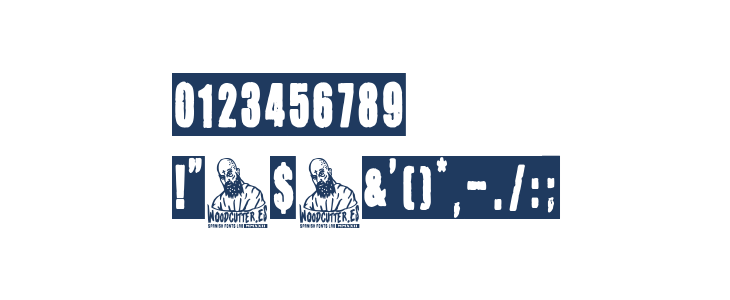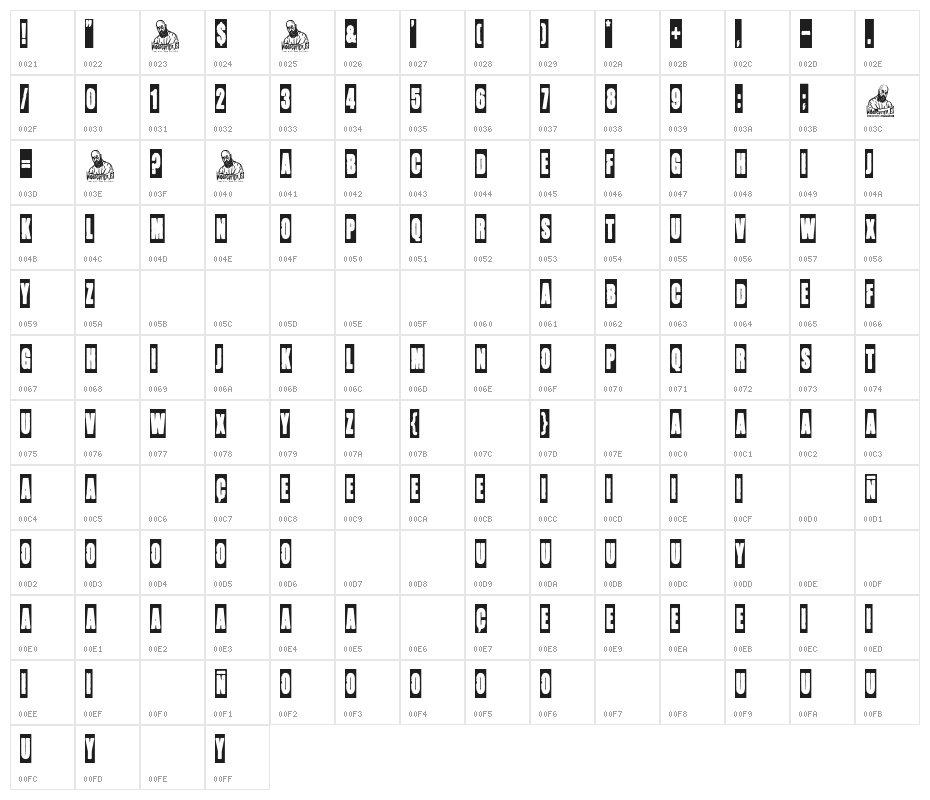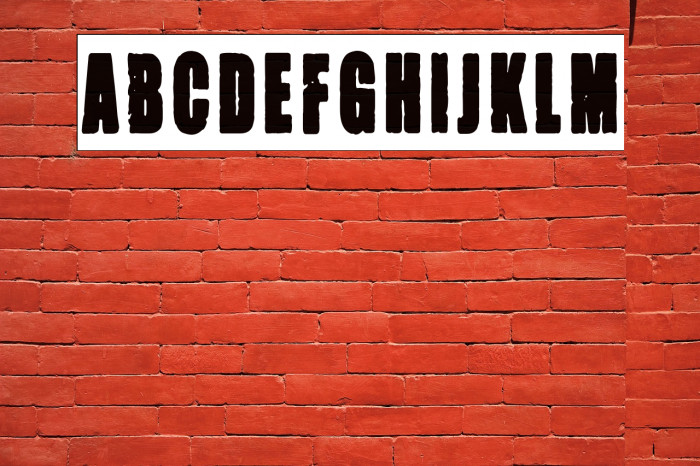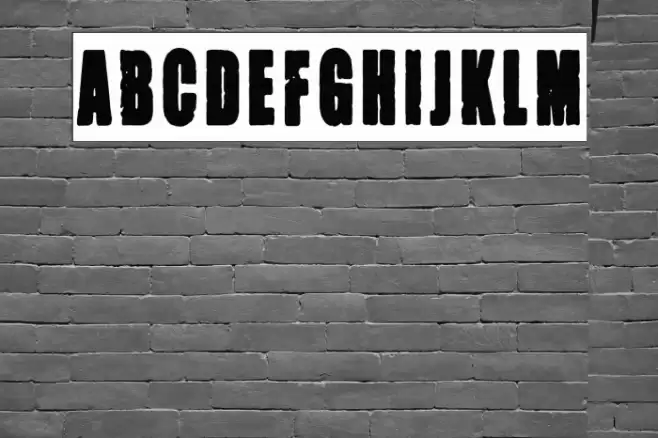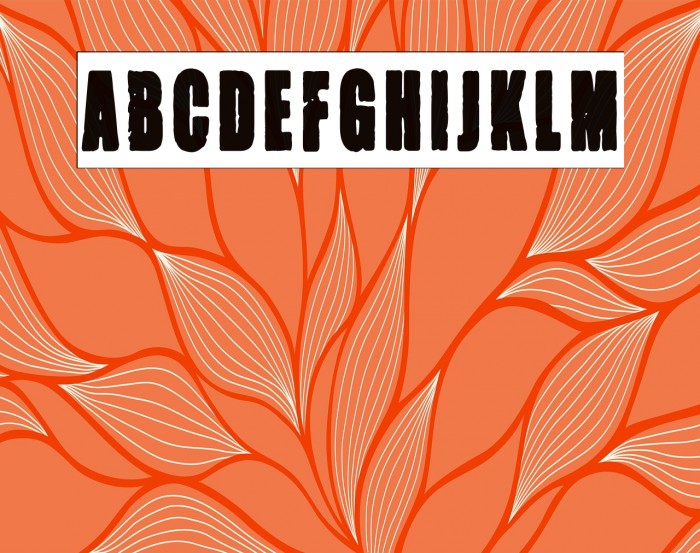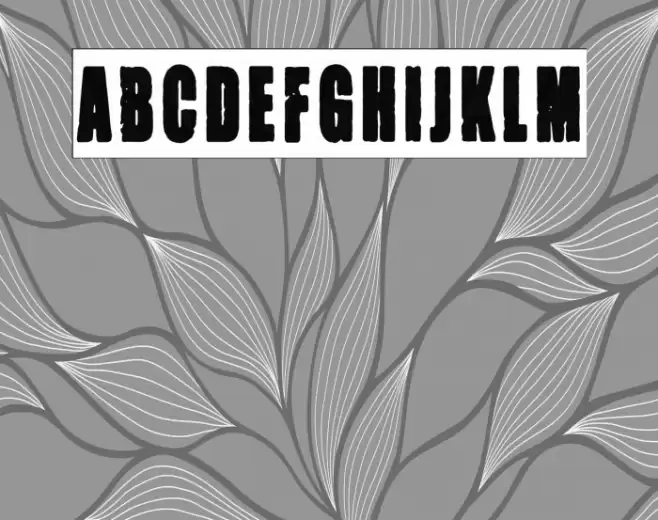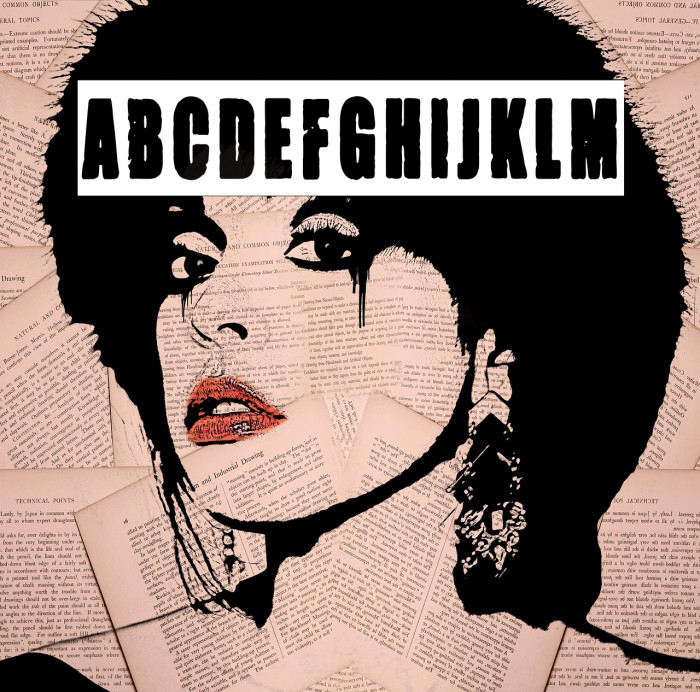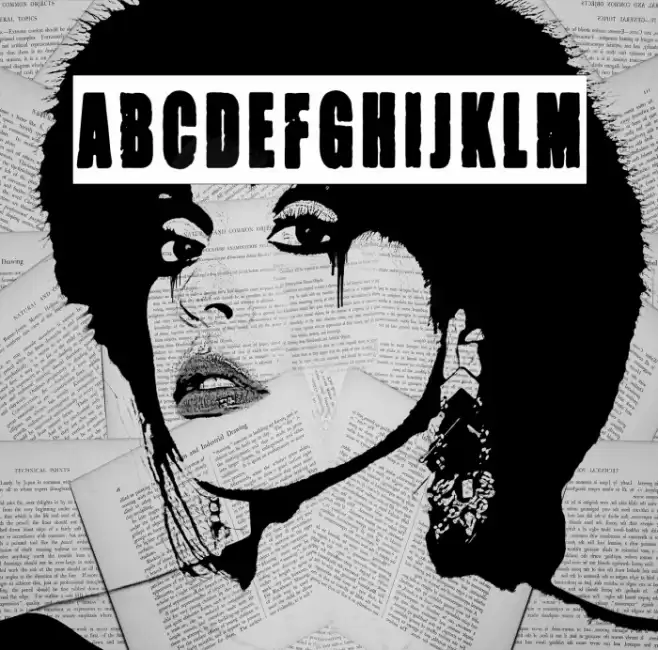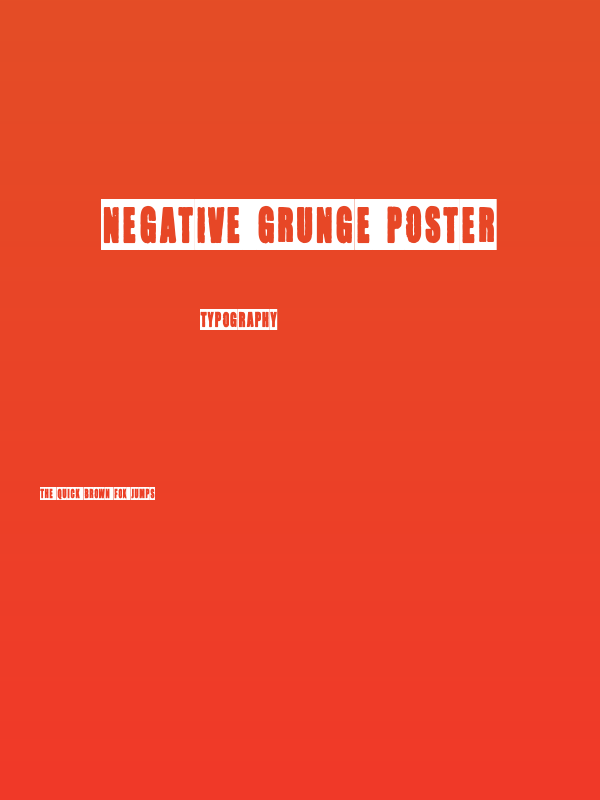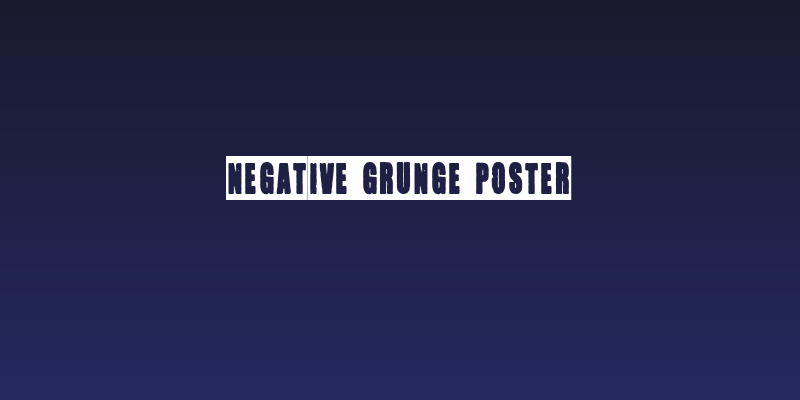
Negative Grunge Poster Font
Negative Grunge Poster Description
This font features a bold, distressed style with a grunge aesthetic, characterized by rough edges and a worn appearance. The uppercase and lowercase letters maintain a consistent height, contributing to a uniform look. The numbers and special characters follow the same rugged design, making them suitable for creating an impactful visual statement. The font's design evokes a sense of rebellion and edginess, perfect for projects that require a bold and unconventional look. Its high contrast between the thick strokes and the distressed texture adds to its striking appearance, making it ideal for eye-catching headlines and posters.
Overall StyleGrunge, Edgy, Bold
Use CaseHeadlines, Posters, Branding
Proposed ProjectsIdeal for music posters, album covers, edgy branding, and rebellious-themed designs.